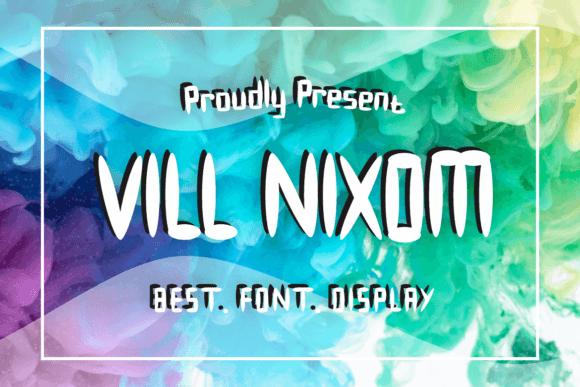
Introducing Vill Nixom, the font that will revolutionize your designs! This extraordinary display font is crafted with impeccable attention to detail, meticulously designed to elevate your creations to new heights.
Immerse yourself in the captivating world of Vill Nixom, where imagination and creativity intertwine effortlessly. Unleash your wildest ideas and watch them soar to unprecedented heights with this font's unparalleled versatility.
Whether you're crafting captivating headlines, mesmerizing posters, or eye-catching logos, Vill Nixom seamlessly adapts to any design challenge. Its dynamic character dances across your designs, adding an irresistible touch of uniqueness that will leave a lasting impression.
Step into a realm of boundless creative possibilities with Vill Nixom. Let your imagination run wild as you harness the power of this font to transform ordinary designs into extraordinary masterpieces.